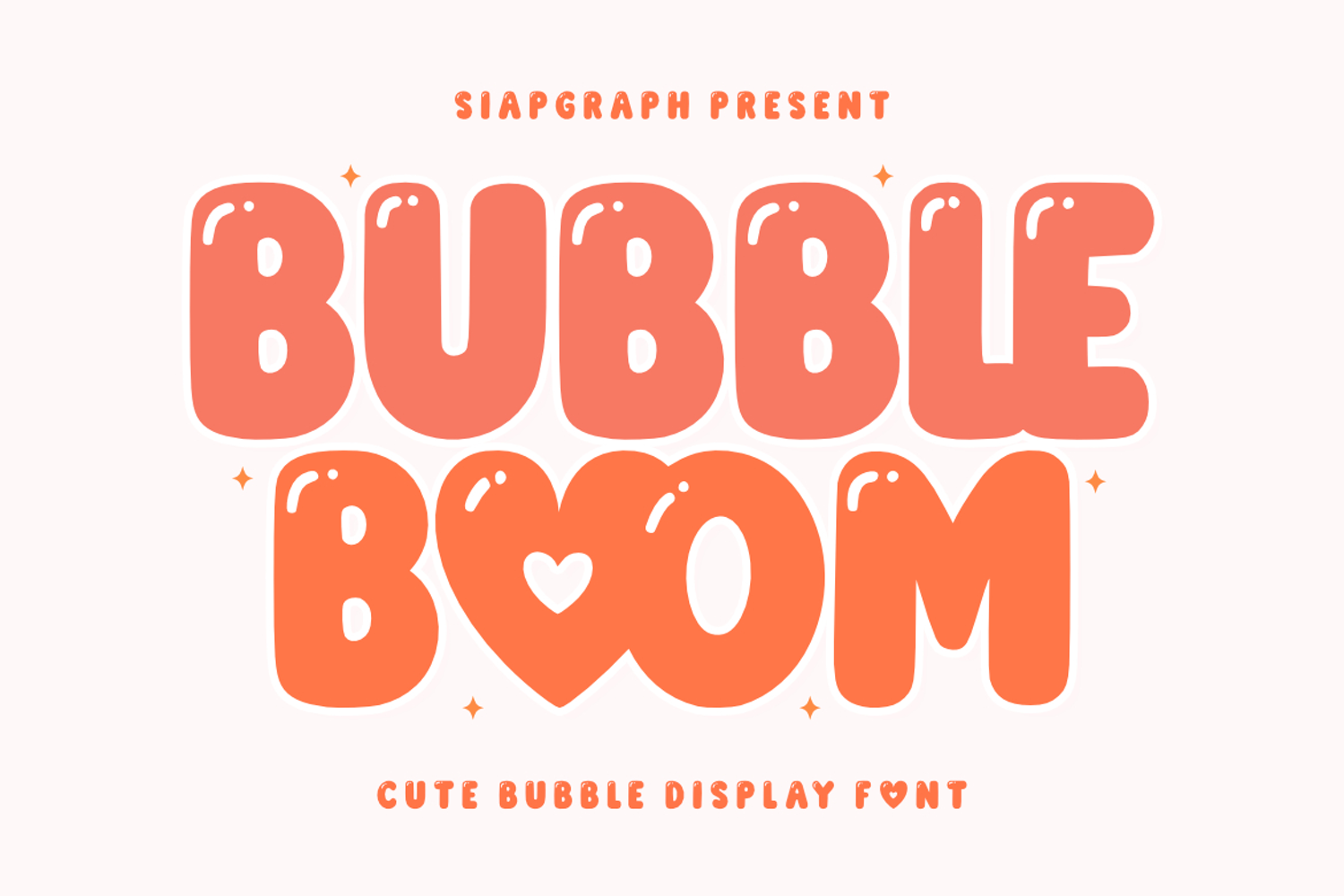
Bubble Boom - Cute Bubble Font
Bubble Boom is a cute bubble display font that radiates energy, playfulness, and pure joy. Featuring chunky, rounded letterforms accented with sweet glossy highlights and charming heart details, this typeface is specifically designed to bring a fun and optimistic vibe to any creative project. Its clean and substantial construction is optimized for the crafting community, ensuring a seamless and frustration-free experience for vinyl cutting, sublimation, and high-quality digital printing.
Perfect for: creating high-impact SVG cut files, personalized stickers, kids' party decorations, adorable nursery wall art, custom t-shirt designs, festive greeting cards, and vibrant social media graphics. Whether you are a professional Print on Demand (POD) seller or a dedicated DIY enthusiast, this font offers the perfect balance of readability and whimsical charm for any project.
Great for holiday themes such as Birthdays, Valentine's Day, Summer parties, and Children's Day, adding a sweet, bouncy, and super cute personality to all your seasonal design collections!